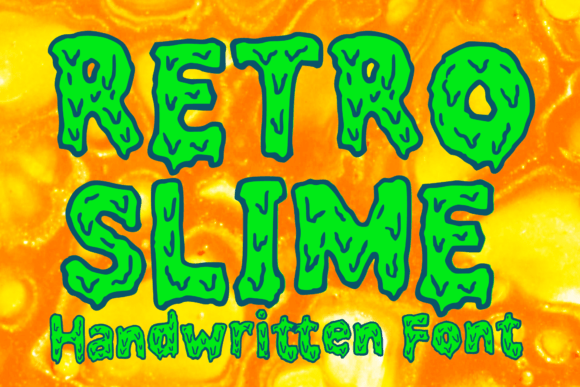
Retro Slime: The Premium Display Font for Viral Campaigns
Retro Slime is a cool slimy display font designed to elevate a wide range of design projects to the highest level, offering marketers a unique tool for creating scroll-stopping visuals. In an era where digital attention spans are measured in seconds, Display typography serves as the critical hook that stops users from scrolling past your content. This specific typeface brings a distinct personality to your brand identity, blending retro aesthetics with a modern, playful edge that resonates deeply with younger demographics and creative industries.
Retro Slime for Stickers and Merchandise Branding
When you integrate Retro Slime into product packaging or promotional items, it transforms simple text into a tangible brand asset that customers want to keep. The description notes that this font is perfect for stickers, making it an ideal choice for small business owners looking to expand their revenue streams through branded merchandise. Unlike generic sans serif fonts that blend into the background, Retro Slime commands attention with its textured, slimy appearance, ensuring that your logo marks and product labels stand out on crowded shelves or social media feeds.
For t-shirt designs, which are explicitly mentioned as a primary use case, this font adds a layer of nostalgia and fun that appeals to Gen Z and millennial audiences. When used for apparel, the visual weight of the letters creates a bold statement piece that functions as free advertising whenever worn in public. By leveraging Retro Slime for these physical touchpoints, you create a cohesive visual language that bridges the gap between digital campaigns and real-world interactions, reinforcing brand recognition every time a customer sees your logo on a sticker or a garment.
Why Retro Slime Elevates T-Shirt Designs and Apparel Graphics
The versatility of Retro Slime allows it to adapt seamlessly to various fabric colors and print techniques. Its unique texture mimics the look of dripping slime or vintage graffiti, adding depth that flat vector fonts often lack. For clothing brands, this means you can achieve a high-end, custom look without needing complex graphic illustrations. The font's character shines when paired with vibrant colors, making it a top-tier choice for limited edition drops, event tees, or influencer collaborations where visual impact is paramount.
Retro Slime for Amazing Logos and Social Media Thumbnails
Creating a memorable first impression requires more than just good copy; it demands a typeface that captures the essence of your message instantly. Retro Slime excels in this regard, serving as a powerful engine for amazing logos and eye-catching thumbnails that drive click-through rates. Whether you are designing a YouTube thumbnail for a gaming channel or a cover image for an Instagram Reel, the font's distinctive shape ensures your content stands out amidst a sea of uniform templates.
In the competitive landscape of digital marketing, Fonts like Retro Slime act as visual shortcuts that communicate tone before a single word is read. If your campaign is about a summer sale, a retro party, or a quirky product launch, this font immediately sets the mood. It suggests creativity, energy, and a break from corporate stiffness. By using Retro Slime for headlines and call-to-action buttons in your digital ads, you guide the user's eye directly to the most important information, increasing engagement and conversion potential.
Optimizing Retro Slime for Mobile Screens and Fast-Scrolling Feeds
While Retro Slime is visually striking, effective marketing requires balancing style with readability. On mobile devices, where screen real estate is limited, the font's bold strokes ensure legibility even at smaller sizes. However, to maintain clarity, it is best suited for short bursts of text such as headlines, titles, and key phrases rather than long paragraphs. Pairing Retro Slime with a clean, neutral sans serif font for body copy creates a dynamic contrast that enhances hierarchy. This combination allows the display font to grab attention while the supporting text remains easy to read, ensuring your message is consumed quickly by users swiping through their feeds.
Retro Slime for Seasonal Promotions and Event Banners
Seasonal campaigns and event promotions demand a sense of urgency and excitement that standard typography often fails to deliver. Retro Slime injects a festive, energetic vibe into email headers, website banners, and landing pages, making your offers feel exclusive and timely. The font's "slimy" aesthetic works particularly well for themes involving water, nature, parties, or anything with a splash of color, allowing marketers to align their visual assets perfectly with the seasonal mood.
Imagine a webinar banner announcing a new course or a digital flyer for a flash sale. Using Retro Slime for the main title creates an immediate emotional connection with the viewer. It signals that the event is not just another routine update but something special worth attending. Furthermore, because the font is versatile enough for both digital and print applications, you can maintain visual consistency across all your marketing channels, from the initial ad click to the final checkout page. This consistency builds trust and reinforces your brand's professional yet creative image.
Leveraging Retro Slime for Content Series and Editorial Design
Content creators building a series of posts or a newsletter can benefit immensely from the consistent branding that Retro Slime provides. By using this font as a recurring element in your content series, you establish a recognizable visual signature that audiences begin to associate with your voice. Whether you are designing editorial layouts for a blog or creating quote graphics for Pinterest, the font adds a layer of sophistication mixed with playfulness. It elevates the perceived value of your content, making even simple text-based posts look professionally designed and worthy of sharing.
However, it is crucial to review commercial licensing agreements before deploying Retro Slime in client campaigns or selling digital products. Understanding the terms of use protects both the designer and the end-client, ensuring that your creative assets are legally sound. By mastering the application of Retro Slime and understanding its nuances in different contexts, you position yourself as a strategic partner who understands the power of typography in driving business results. Ultimately, this font is more than just a decorative element; it is a strategic tool for enhancing visual communication and capturing audience attention in a crowded digital marketplace.